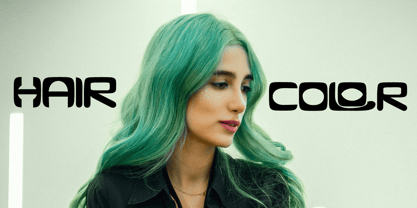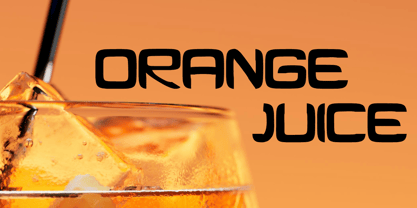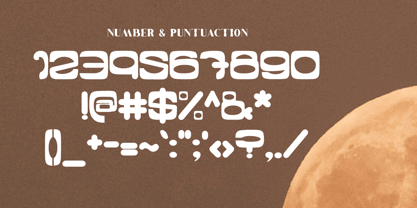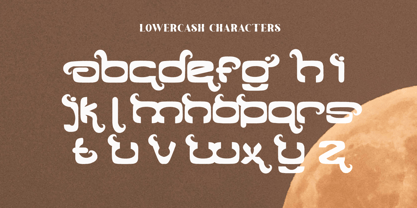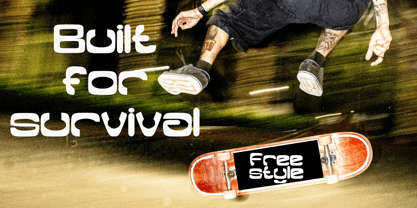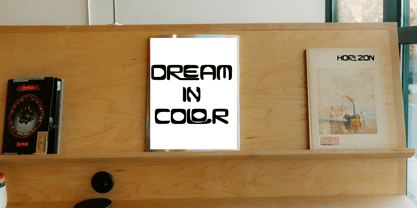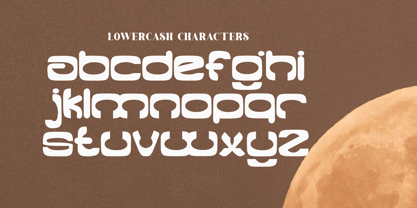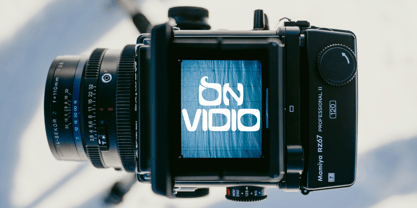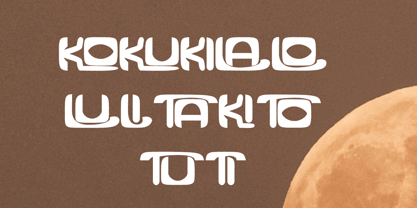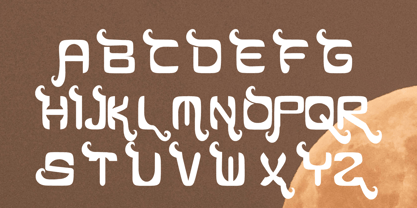
Alfonzo
von Letternesia studio
Die Schriftfamilie Alfonzo wurde von Ta Siyo entworfen und von Letternesia studio veröffentlicht. Alfonzo enthält 2 Stile und Familienpaketoptionen. Mehr über diese Familie
Alfonso is a bold and modern display font crafted to command attention. Its strong, well-balanced letterforms make it an ideal choice for titles, logos, branding, posters, and any design that needs a striking visual impact. Clean yet distinctive, Alfonso delivers a professional look while still standing out with its unique character. Perfect for creative projects, social media graphics, and product packaging that aims to appear confident and stylish. Elevate your design with Alfonso — a display font made to captivate at first glance.